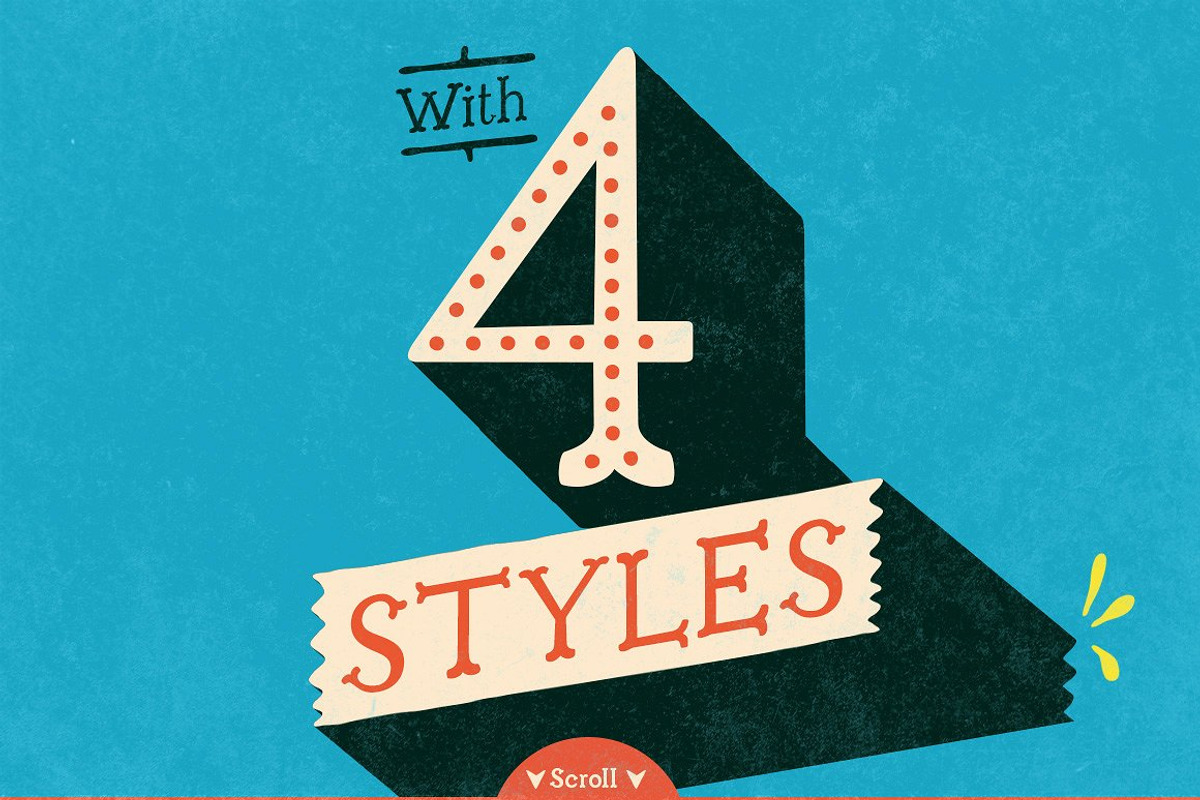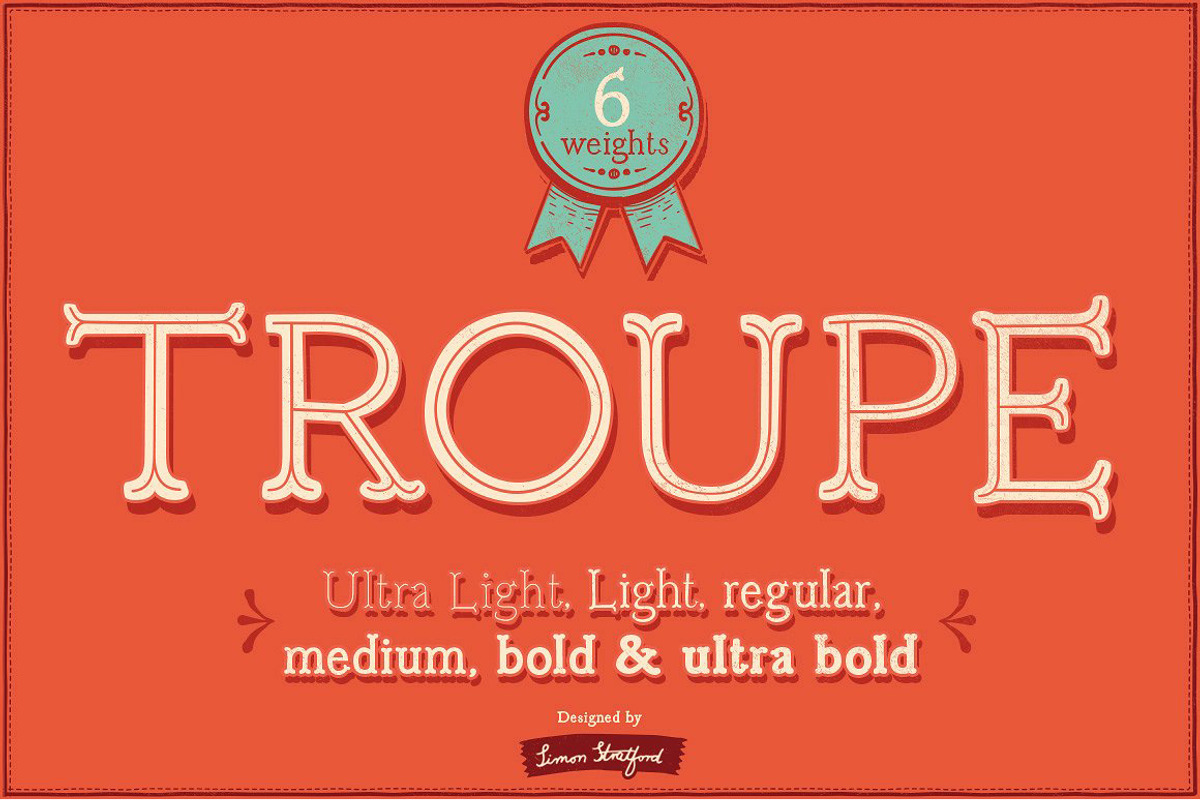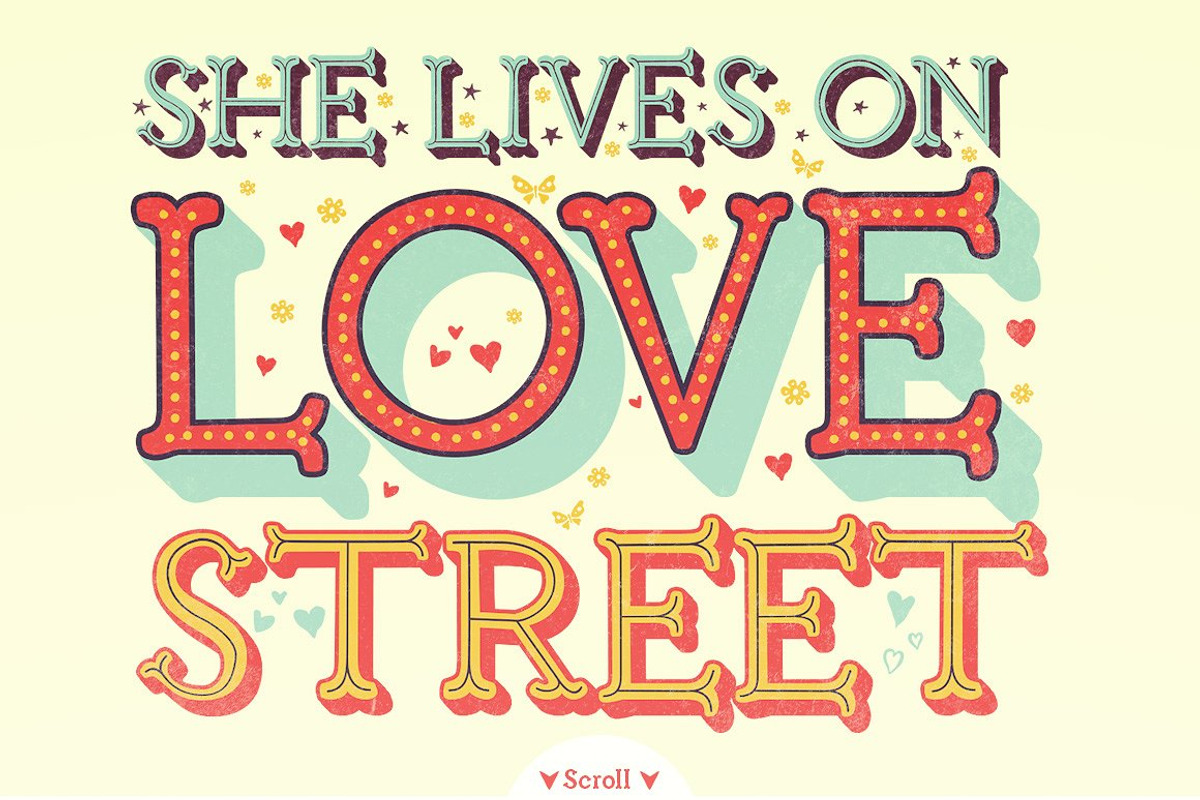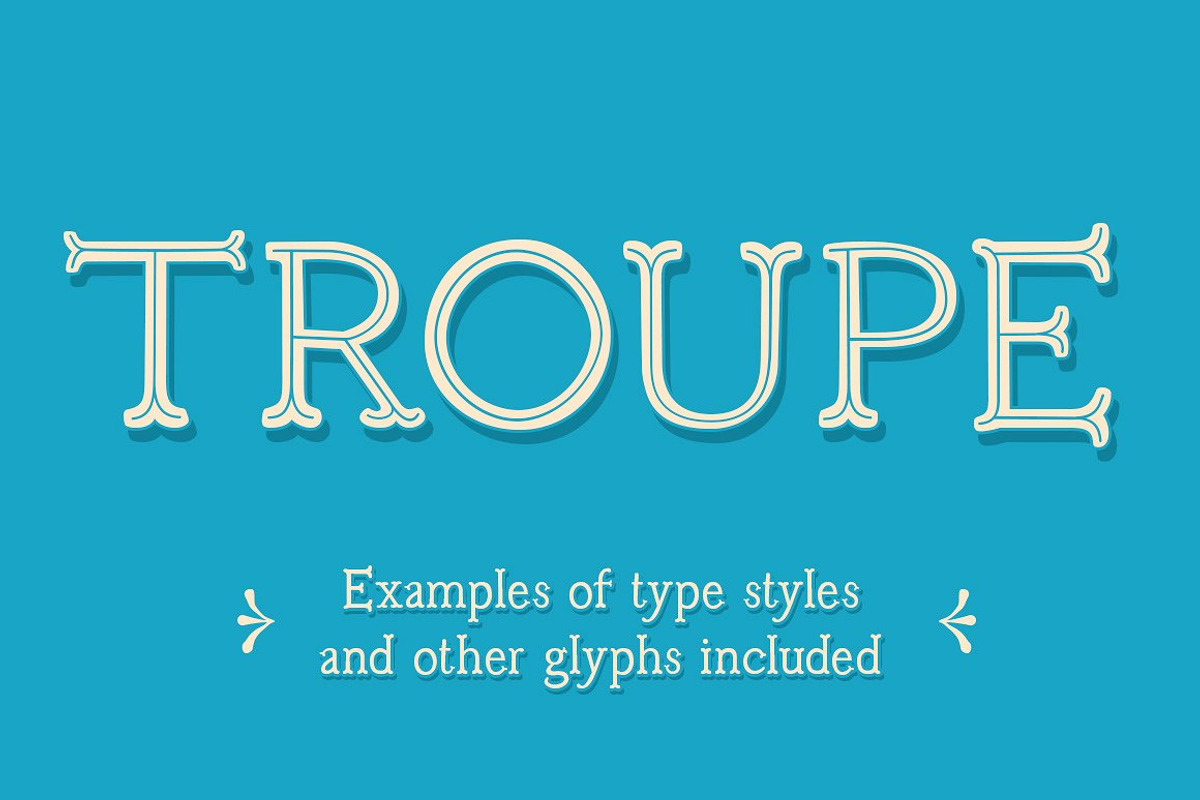
Slab serif font Troupe
Slab serif font Troupe by Itsmesimon is a font selected for branding, posters, packaging, typography.
- Included 6 weights Ultra Light Light Medium Regular Bold Ultra Bold Included 4 styles Inner stroke Outline filled Dots Font format A
- The font contains around 370 characters including uppercase, lowercase, numbers, punctuation, maths and currency.
- Included 6 weights Ultra Light Light Medium Regular Bold Ultra Bold Included 4 styles Inner stroke Outline filled Dots Font format A
- The font contains around 370 characters including uppercase, lowercase, numbers, punctuation, maths and currency.
- It also has standard ligatures for the 6 weights.
- Troupe Ultra Light
- Troupe Light
- Troupe Regular
- Troupe Medium
- Troupe Bold
- Troupe Ultrabold
- Troupe Dots
- Troupe Inner Stroke
- Troupe Outline
- Troupe Outline Filled
Slab serif font Troupe by Itsmesimon fits naturally into Branding, posters, packaging, typography.